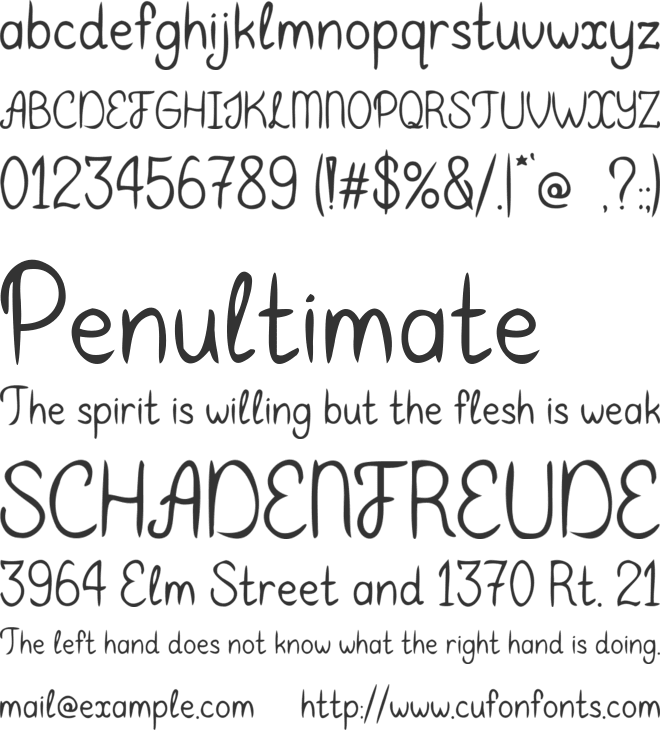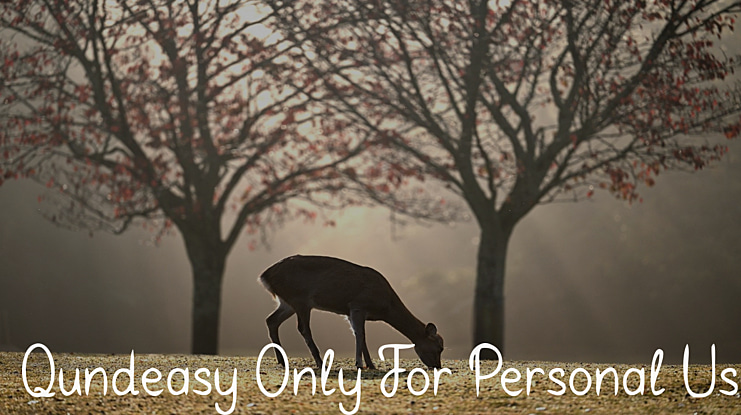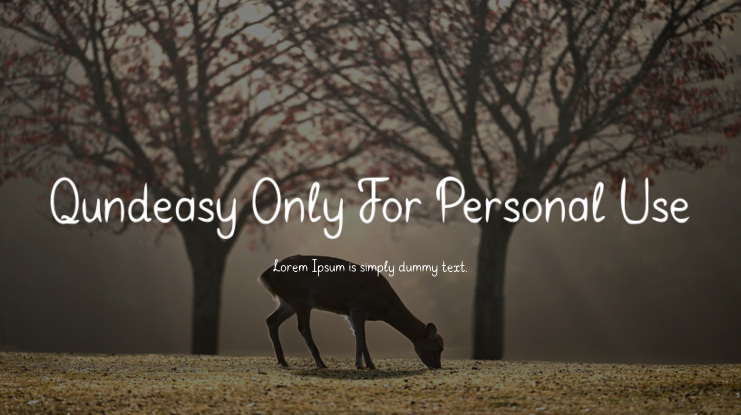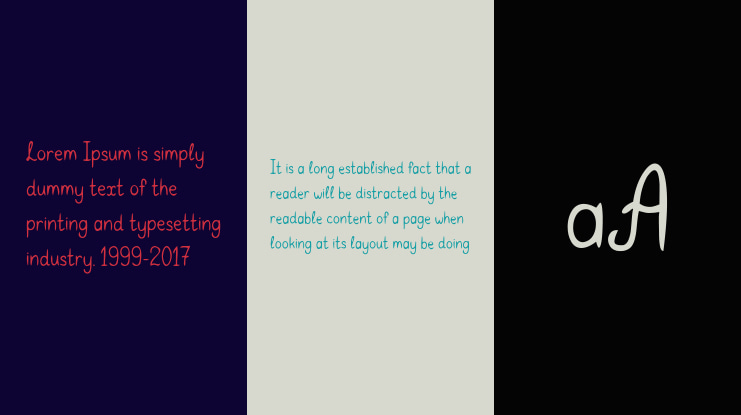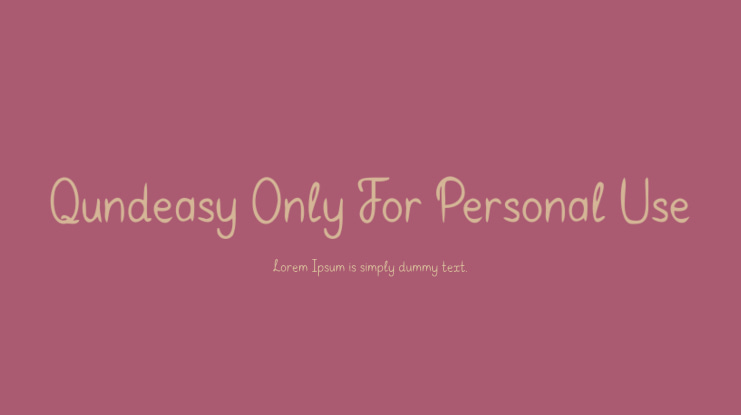
Qundeasy Only For Personal Use Font
Qundeasy is a sloppy and cute handwritten font. First of all, it is suitable for handmade style design. Сan create interesting logos, posters, banners, social media creatives, postcards and greetings with this font.